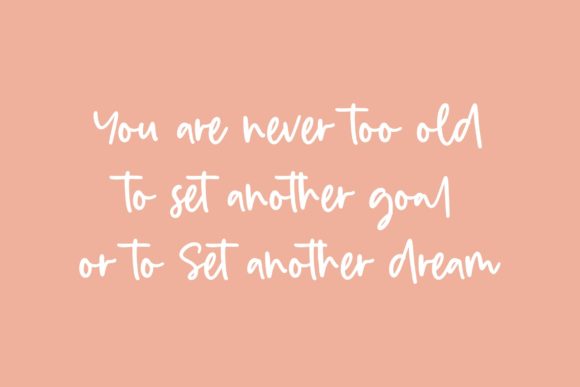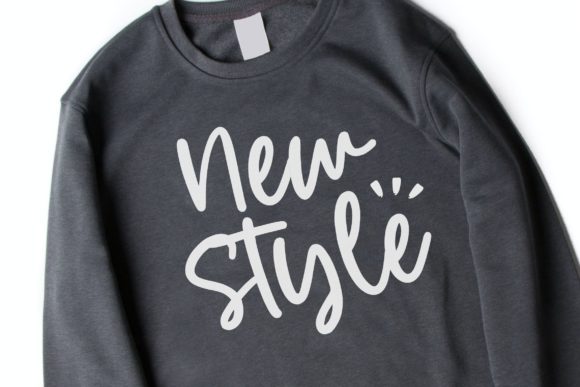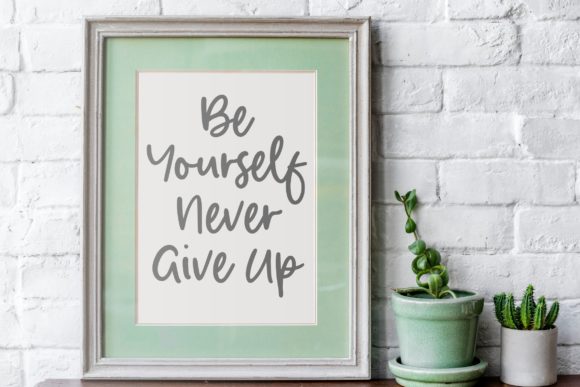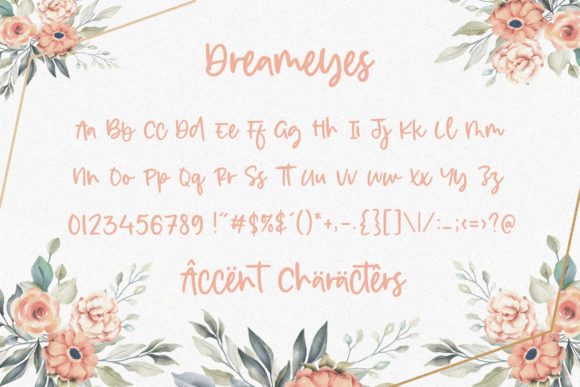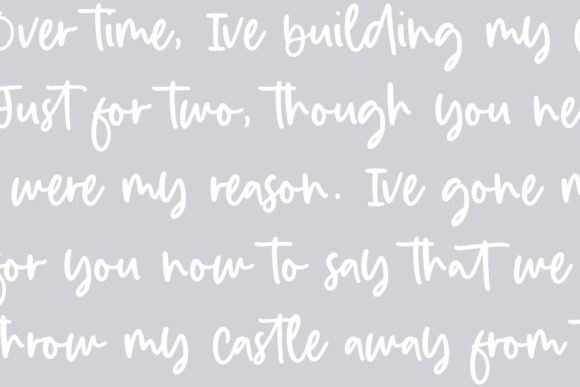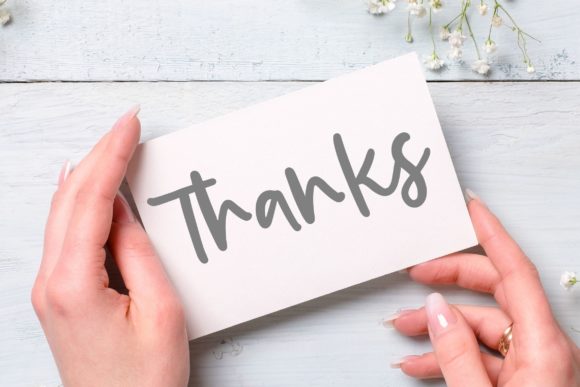
Dreameyes Font: The Ultimate Choice for Creative Expression
Are you a designer, crafter, or DIY enthusiast looking for a unique and quirky font to elevate your creative projects? Look no further than Dreameyes, a relaxed and handwritten font that’s perfect for turning your ideas into stunning works of art. In this article, we’ll dive into the world of Dreameyes and explore its features, benefits, and uses.
What is Dreameyes Font?
Dreameyes is a one-of-a-kind, handwritten font that’s designed to add a touch of personality to your creative projects. With its relaxed and quirky vibe, this font is perfect for designers, crafters, and DIY enthusiasts who want to make their work stand out from the crowd. Whether you’re creating Instagram graphics, calligraphy scripts, or DIY projects, Dreameyes is the ultimate choice for adding a dash of creativity and whimsy.
Features of Dreameyes Font
So, what makes Dreameyes font so special? Here are some of its key features:
- Handwritten style: Dreameyes is a handwritten font that’s designed to look like it was written with a pen or pencil. This gives it a personal and organic feel that’s perfect for creative projects.
- Relaxed and quirky vibe: Dreameyes has a laid-back, quirky vibe that’s perfect for designers and crafters who want to add some personality to their work.
- Versatile: This font is versatile and can be used for a wide range of creative projects, from Instagram graphics to calligraphy scripts and DIY projects.
- Easy to read: Despite its quirky vibe, Dreameyes is easy to read and understand, making it perfect for use in body text or headings.
Benefits of Using Dreameyes Font
So, why should you choose Dreameyes font for your creative projects? Here are some of the benefits of using this amazing font:
- Adds personality to your work: Dreameyes font adds a touch of personality to your work, making it stand out from the crowd.
- Perfect for creative projects: This font is perfect for creative projects, such as Instagram graphics, calligraphy scripts, and DIY projects.
- Unique and quirky: This font has a unique and quirky vibe that’s perfect for designers and crafters who want to add some whimsy to their work.
Uses of Dreameyes Font
So, what can you use Dreameyes font for? Here are some ideas:
- Instagram graphics: Use Dreameyes font to create stunning Instagram graphics that showcase your personality and style.
- Calligraphy scripts: Dreameyes font is perfect for calligraphy scripts, adding a touch of whimsy and personality to your work.
- DIY projects: Use Dreameyes font to add a personal touch to your DIY projects, such as handmade cards, gift tags, and more.
- Branding and marketing: Dreameyes font can also be used for branding and marketing projects, such as logos, brochures, and business cards.
In conclusion, Dreameyes font is a unique and quirky handwritten font that’s perfect for designers, crafters, and DIY enthusiasts. With its relaxed and quirky vibe, this font is perfect for adding a touch of personality to your creative projects. Whether you’re creating Instagram graphics, calligraphy scripts, or DIY projects, Dreameyes font is the ultimate choice for turning your ideas into stunning works of art.